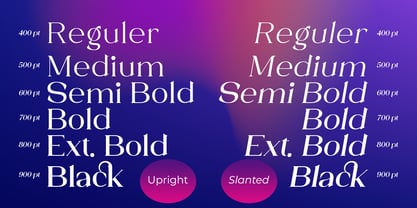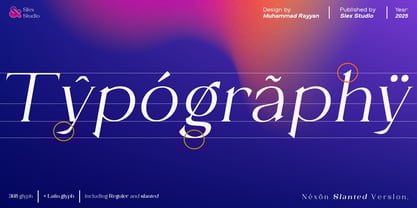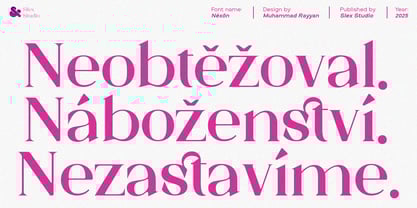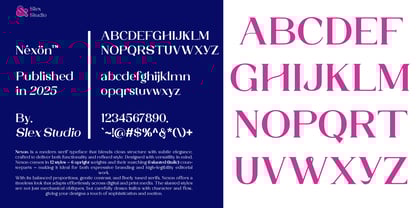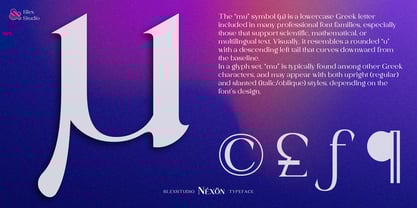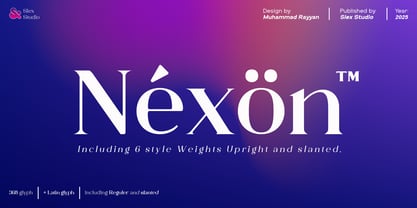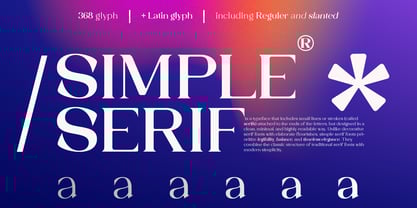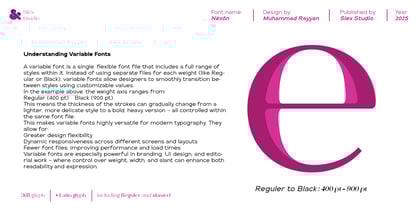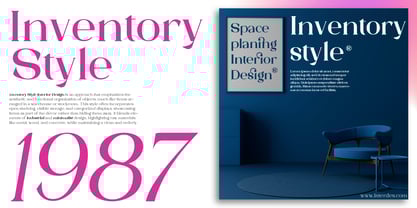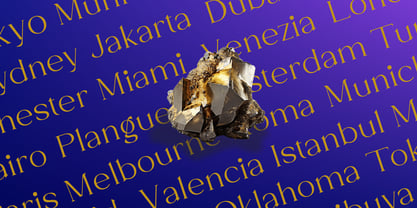
Nexon
by Slex Studio
The Nexon Font Family was designed by Muhammad Rayyan and published by Slex Studio. Nexon contains 84 styles and family package options. More about this family
Nexon is a modern serif typeface that blends clean structure with subtle elegance, crafted to deliver both functionality and refined style. Designed with versatility in mind, Nexon comes in 12 styles — 6 upright weights and their matching 6 slanted (italic) counterparts — making it ideal for both expressive branding and high-legibility editorial work. With its balanced proportions, gentle contrast, and finely tuned serifs, Nexon offers a timeless look that adapts effortlessly across digital and print media. The slanted styles are not just mechanical obliques, but carefully drawn italics with character and flow, giving your designs a touch of sophistication and motion.
Designers: Muhammad Rayyan
Foundry: Slex Studio